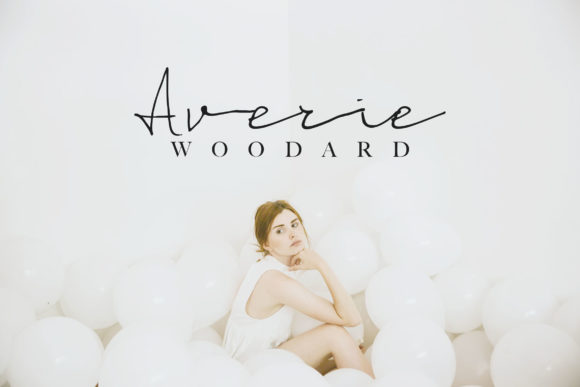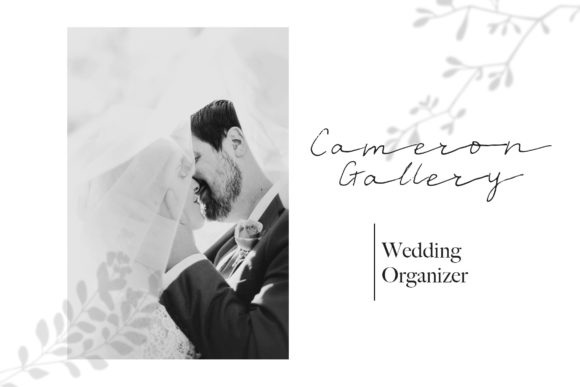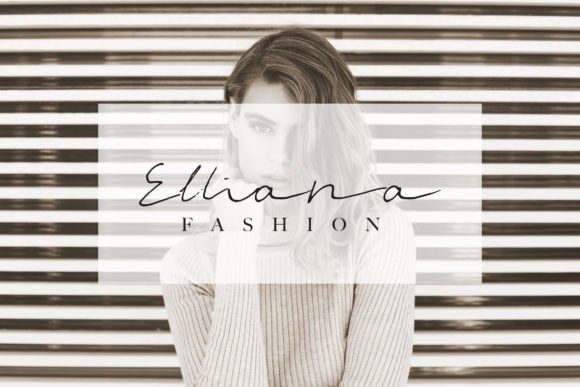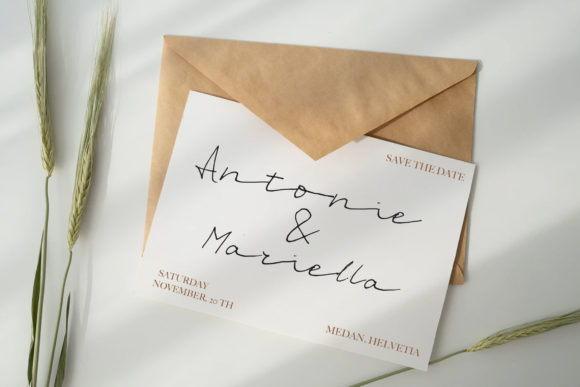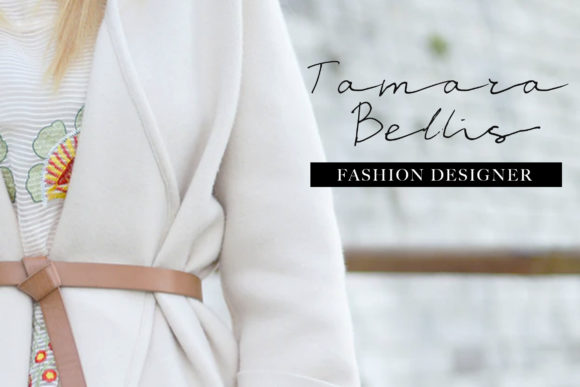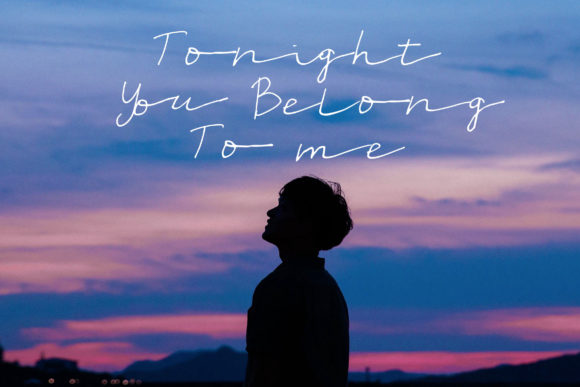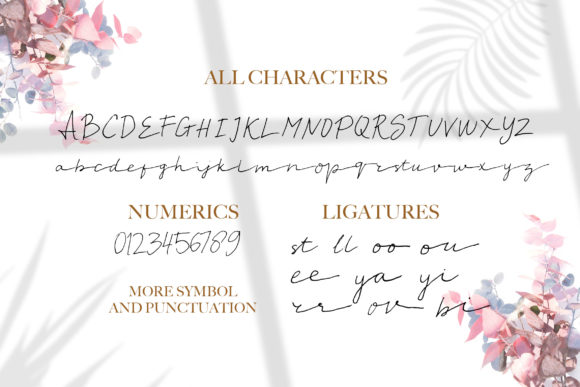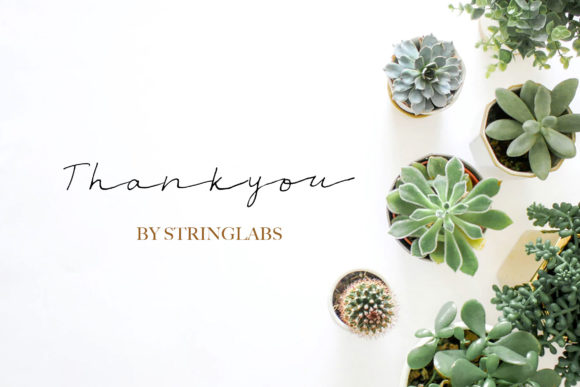
HomeScript FontsMoriana Font Script Fonts Moriana Font FacebookTwitterPinterestWhatsApp Moriana Font Poster 2 Moriana Font Poster 3 Moriana Font Poster 4 Moriana Font Poster 5 Moriana Font Poster 6 Moriana Font Poster 7 Moriana Font Poster 8 Moriana Font Poster 9 About Moriana Font Moriana is a smooth and charming monoline script with a casual feel. DOWNLOAD NOW People also explored Campfire The Rockers Font Fire Wisdom Font Kansas Font Smithasa Font Jingle Noels Font Lindsay Brown Font Shade Sans Font Madena Parlling Font 169 0 TagsMoriana Font Previous articleBeauty Pink Flowers FontNext articleGeovanice Font LEAVE A REPLY Cancel reply Comment: Please enter your comment! Name:* Please enter your name here Email:* You have entered an incorrect email address! Please enter your email address here Website: Save my name, email, and website in this browser for the next time I comment. Personal Use Free Happy Camping Personal Use Free Read more about this font Good Timing – Bold Personal Use Free Read more about this font Klotee Personal Use Free Read more about this font Pan Pizza Personal Use Free Read more about this font BLOG Best Fonts for T-Shirt Design – Top 2025 Picks In 2025, t-shirt design has become more than just fashion—it's a form of self-expression. Whether you're... Free Fonts Risk: Why Free Fonts Can Be Dangerous for Designers The 10 Best Handwriting Fonts to Add Personality to Your Designs Transform Your Website: Elevate Your Typography with 7 Best Web Font Generators